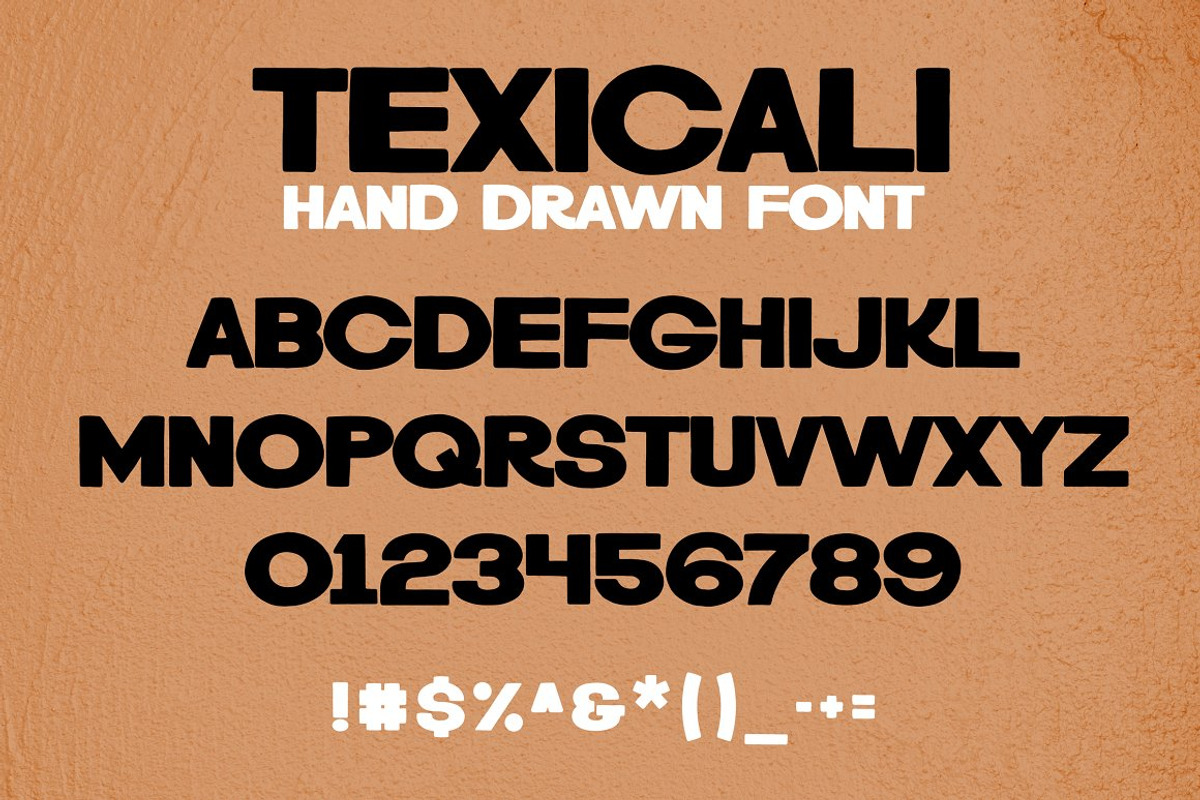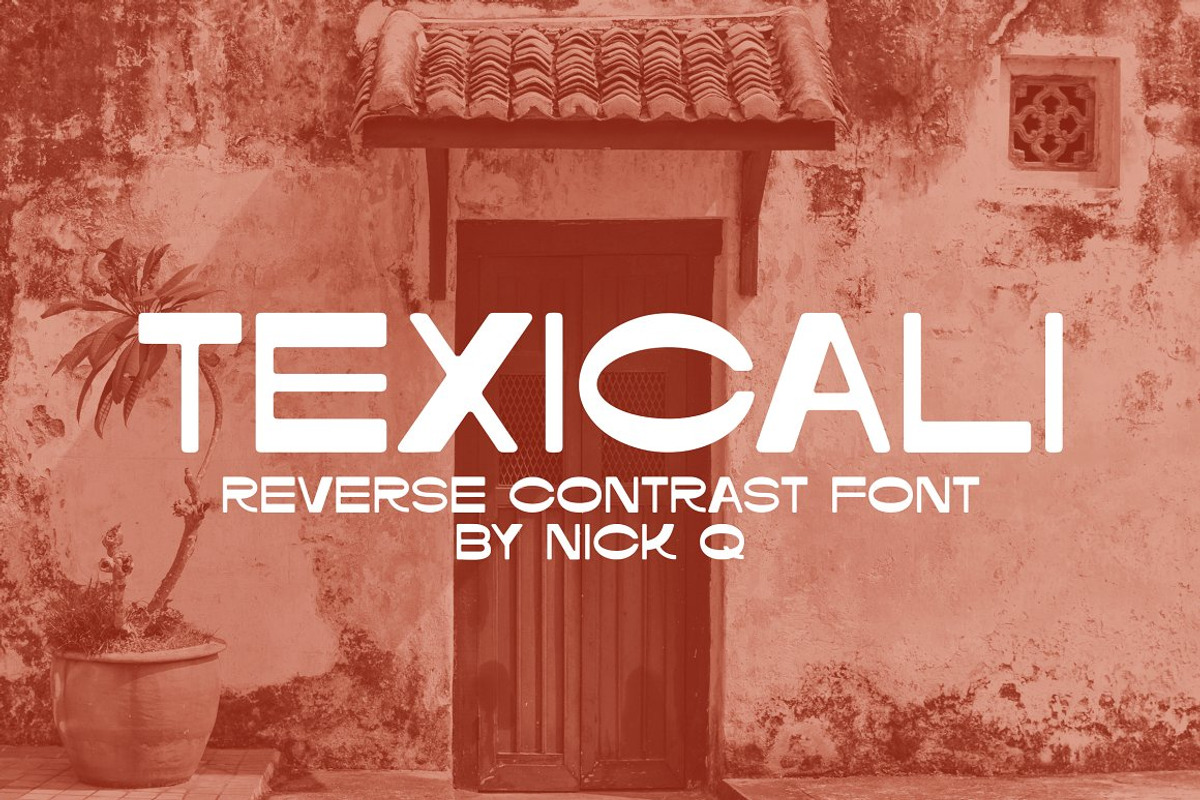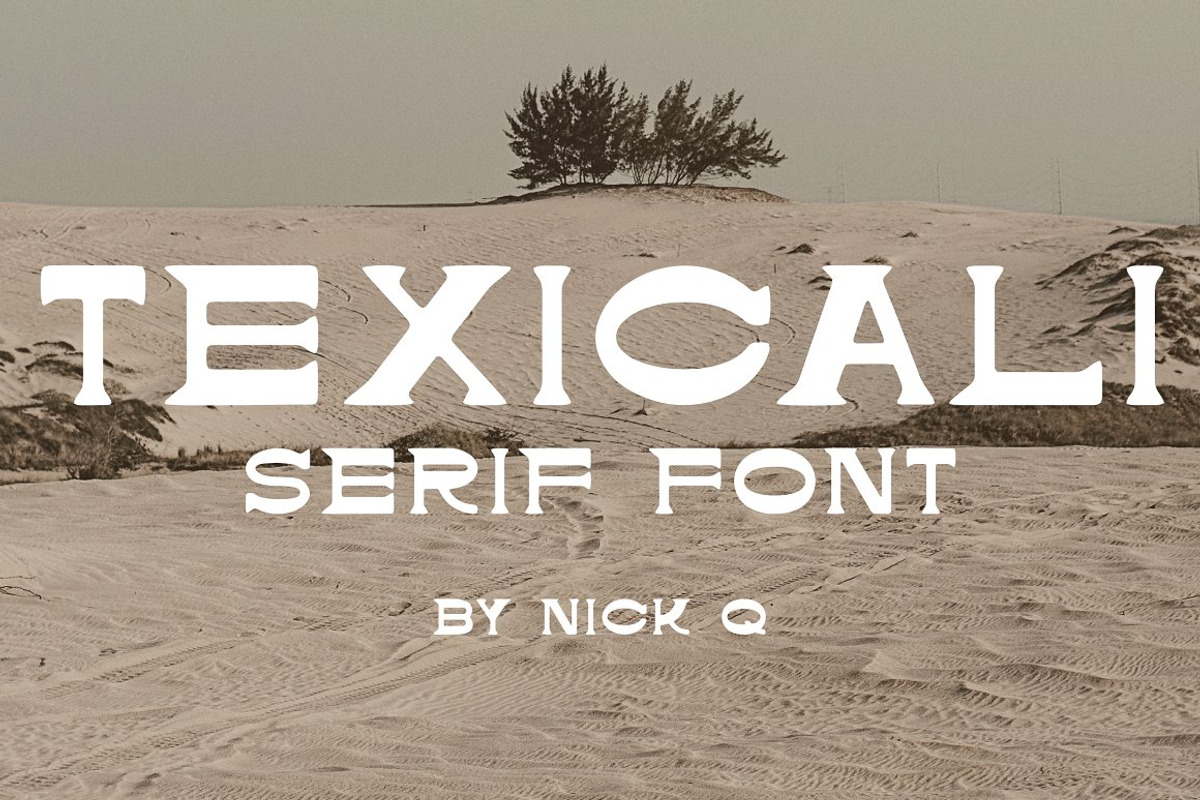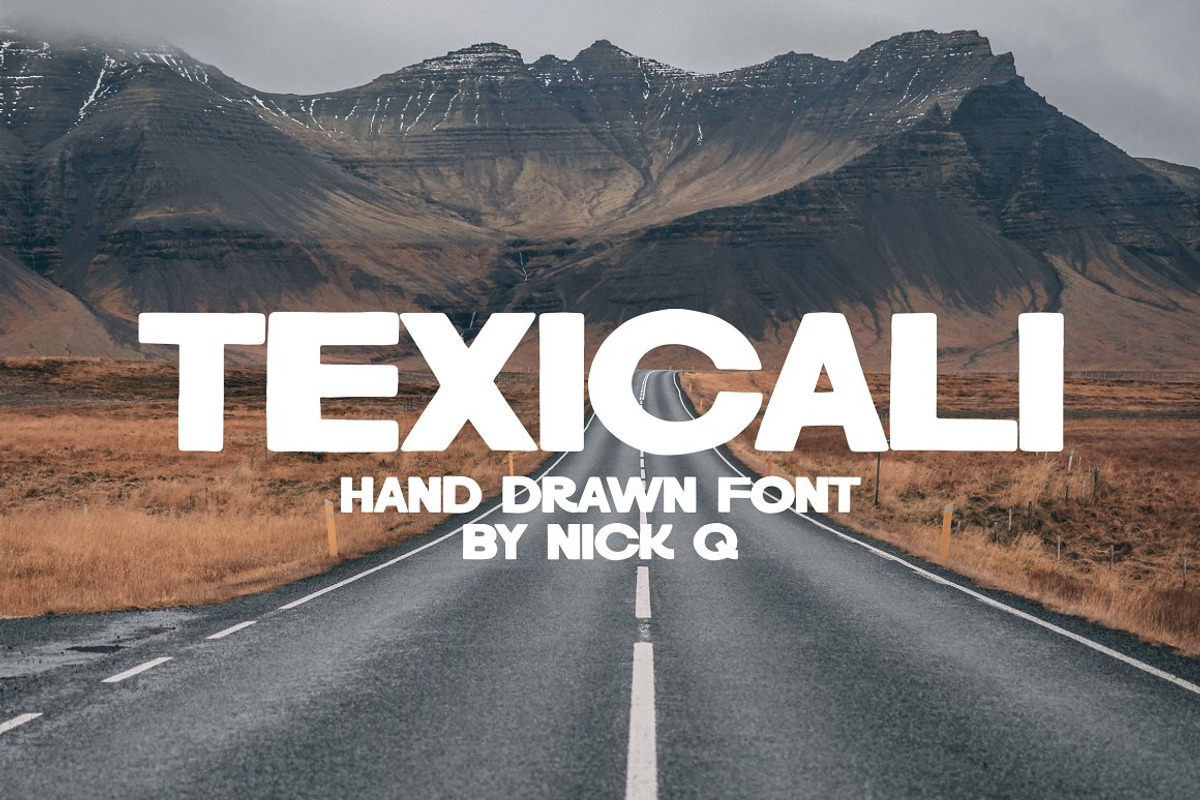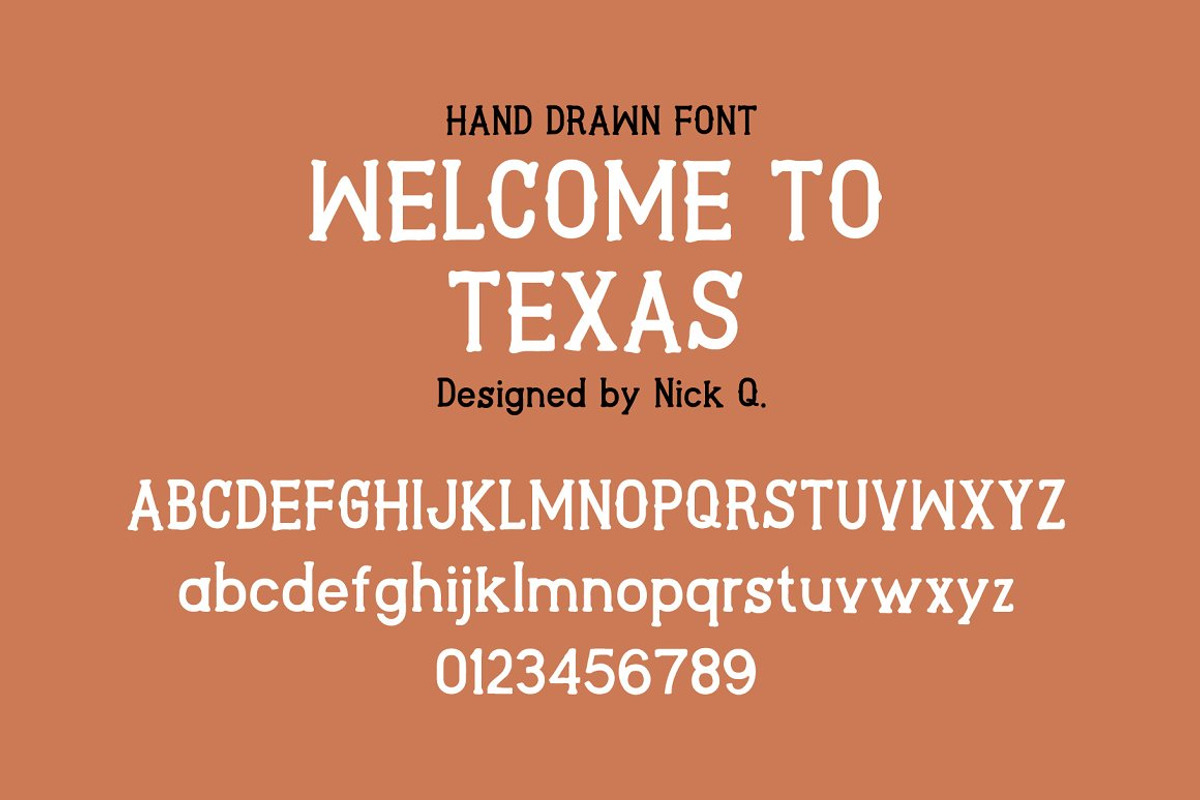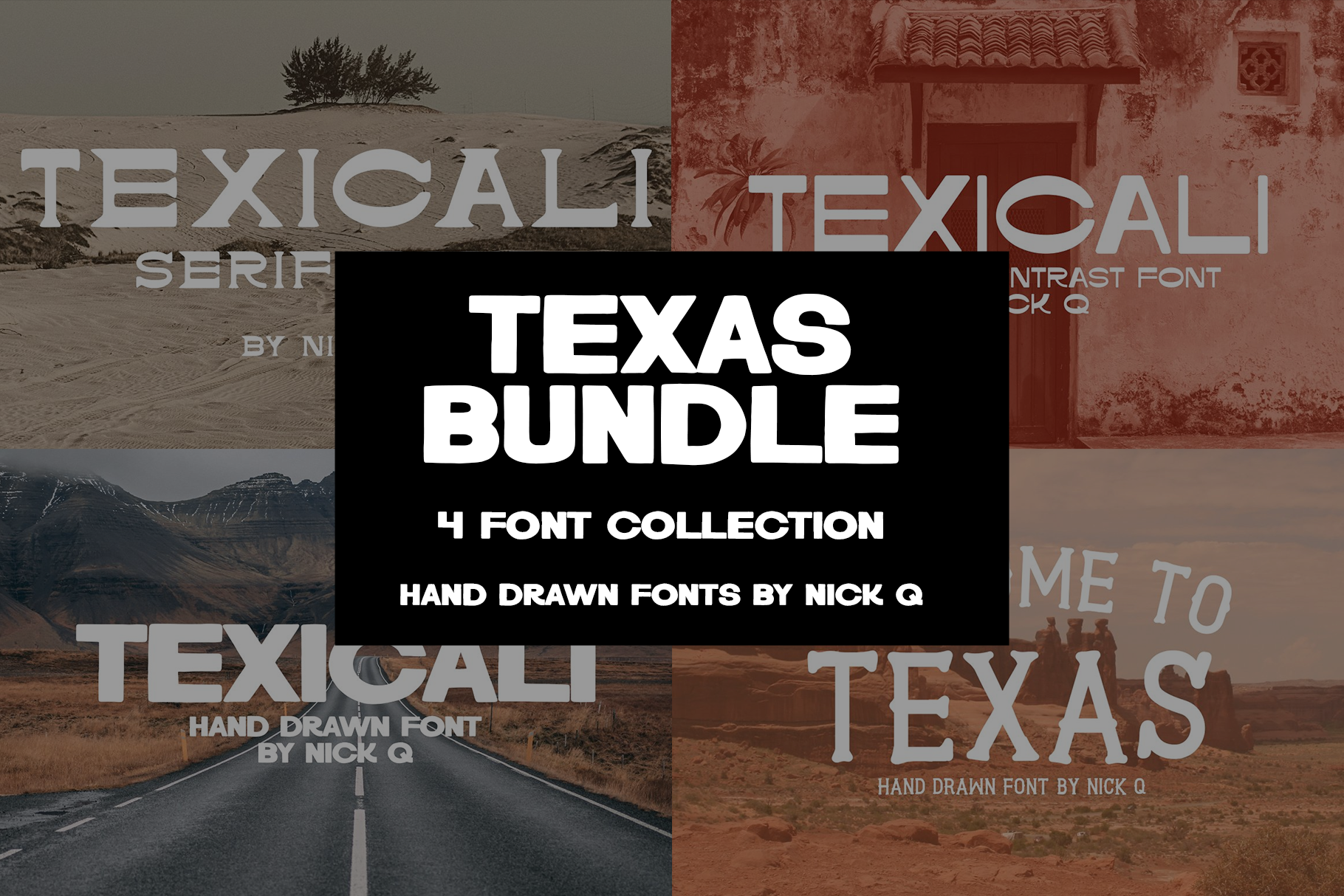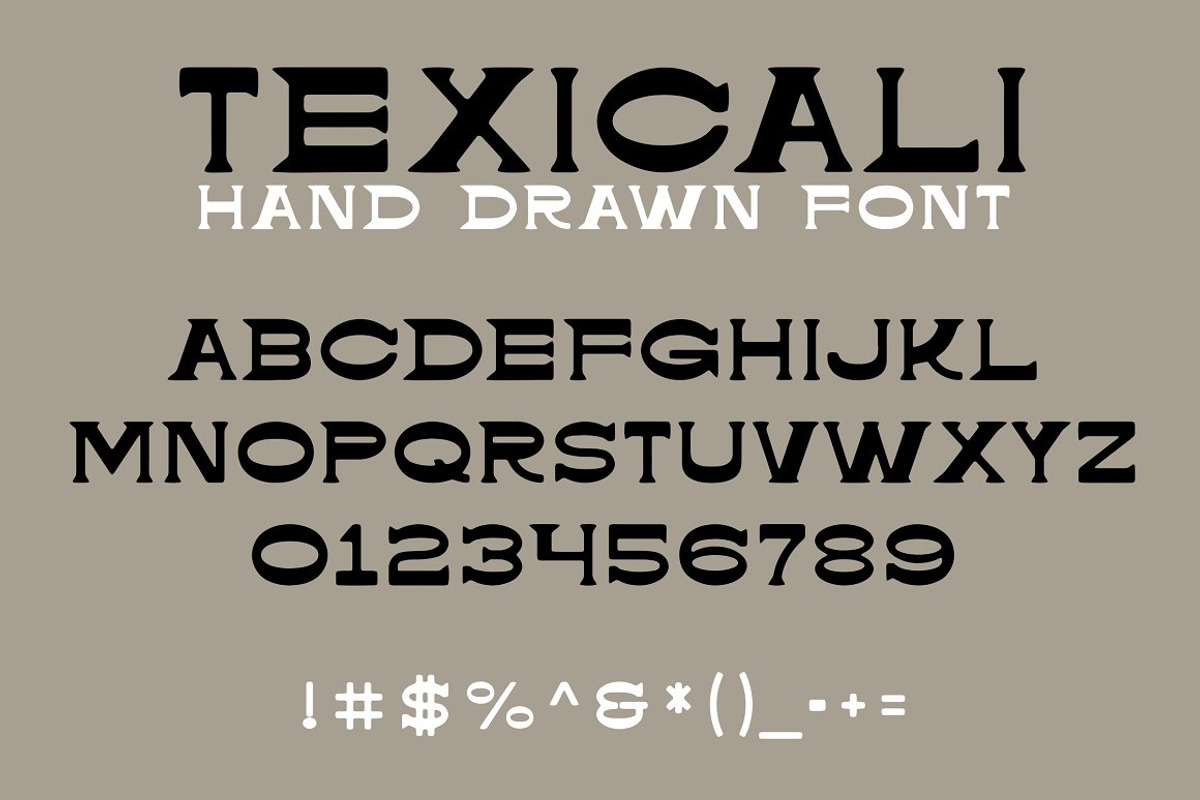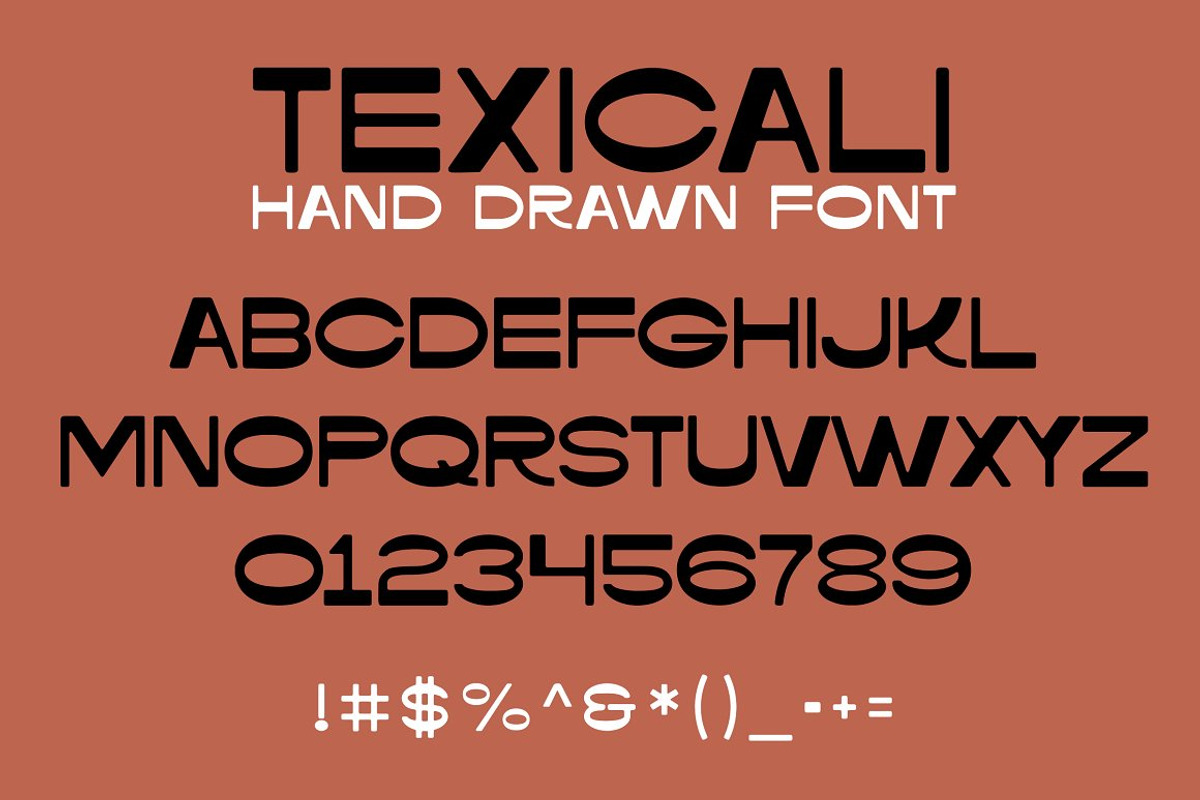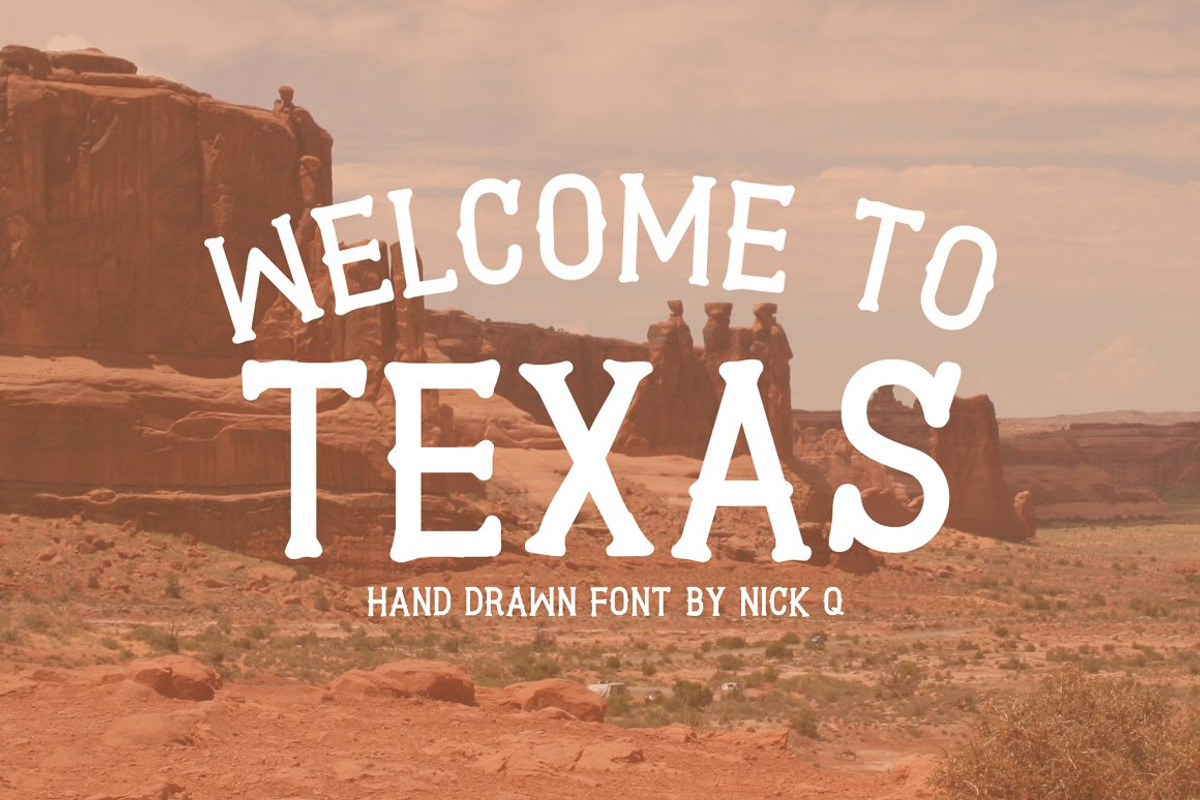
Texas Font Bundle
Four hand drawn, Texas themed fonts. These are four of my original fonts. Since creative market raised the price limit for fonts, I decided to repackage my fonts you can get 4 for the $12 minimum price point they have forced me into. I hope this makes it more worth it!